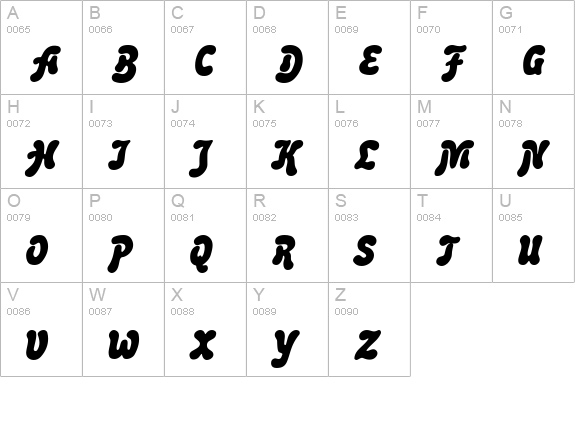
Advert MF Italic is a distinctive, italic variant in the Advert typeface family \xE2\x80\x94 well suited to design and typography projects.
Introducing Advert MF Italic font, a sleek and modern typeface that exudes sophistication and style. Its elegant slanted design adds a touch of flair to any project, whether it's for print or digital use. Perfect for branding, advertising, and editorial design, Advert MF Italic font delivers a polished and professional look. And here's the best part - Advert MF Italic font is available for free download at FontsMarket.com! That's right, you can elevate your design projects with this premium font without spending a dime. Don't miss out on this fantastic opportunity to enhance your creative work with Advert MF Italic font - download it now and start creating stunning designs today.